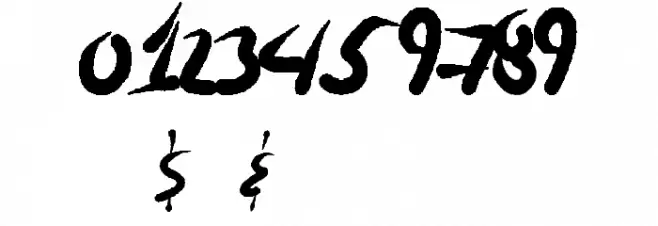
SpringNinja Font
SpringNinja Description
This font exhibits a dynamic and energetic style, characterized by its brush-like strokes and fluid motion. The letters are crafted with a sense of spontaneity, giving it a handwritten appearance that is both bold and expressive. The uppercase and lowercase letters maintain a consistent flow, while the numbers and special characters integrate seamlessly with the overall design. The font's organic curves and varying stroke widths contribute to its lively and artistic feel, making it suitable for projects that require a personal touch.
A bold, brush-style font with a dynamic and handwritten appearance from Uncategorized fonts.